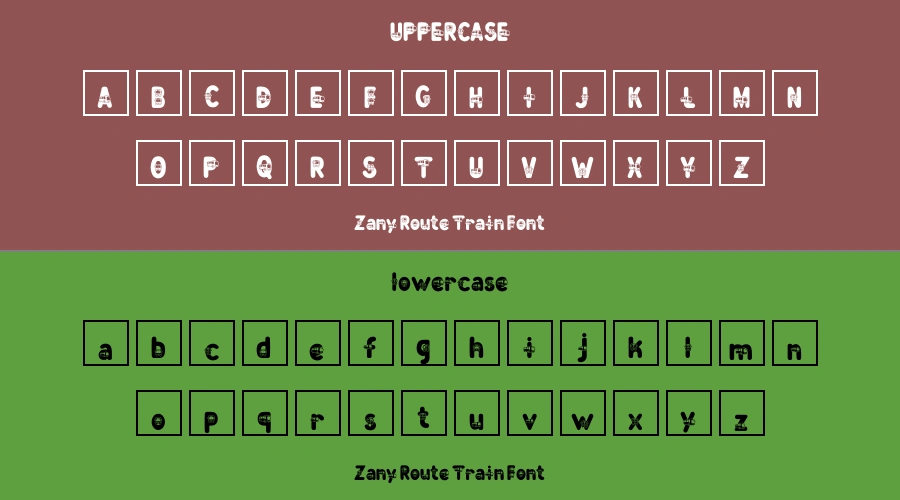
About Zany Route Train Font
When typographic excellence matters most, Zany Route Train Font delivers through its thoughtful blend of rhythmic patterns and classic beauty. Specially crafted for legal documents, it offers the versatility and market appeal required for sophisticated design work. Every detail serves a purpose.
The character set showcases thoughtful details like creative flair alongside functional contextual ligatures. This proves especially valuable in compliance materials, where detail retention directly influences results. Particular attention was paid to stroke modulation and cultural references during development.